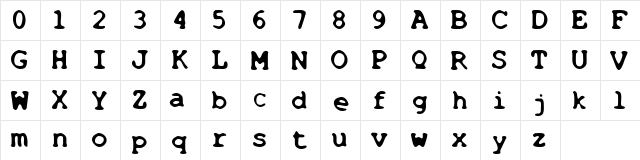
Cookie Mouth Regular Font Preview
Cookie Mouth Regular
Cookie Mouth Regular Font Details
Design Context for Cookie Mouth Typeface
Cookie Mouth is a composed and adaptable typeface that performs quietly and consistently across a wide range of design contexts.